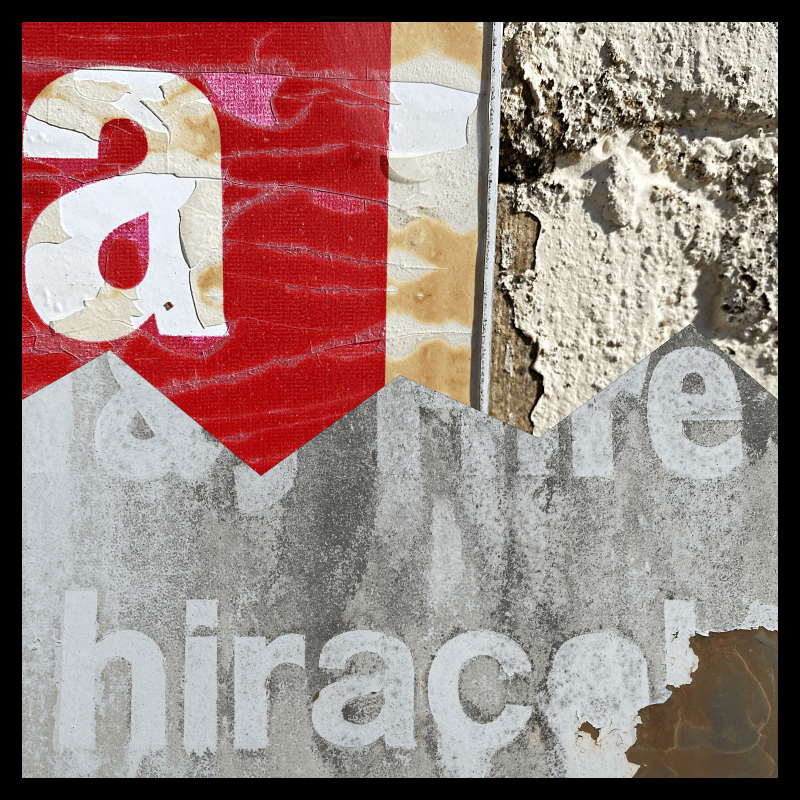
Walking aimlessly around, I never really realised how recurring the lettering around the campus could get. Almost every sign(board) had the same generic, bold San Serif font. The only factor that was changing, was the background colour of the subject, depending upon the importance of the information.
Soon it became clear that it was easy to look at lettering in environment from a stagnant point of view. Instead of focusing on purely sign(boards), which were predominant around the campus, it was time to look around various objects, even if all of their lettering style was similar.
As you can see above, bold text is still widely popular, but what makes it different is the texture behind the lettering. The materials, whether they are heavily industrialised or natural, end up creating a different visual image each time. This could suggest that even if much simpler or bolder texts are used more commonly around us, the texture and the material can provide a different feeling and effect.
It’s all about looking closer at lettering in an environment, breaking it apart and considering every single material that supports it.